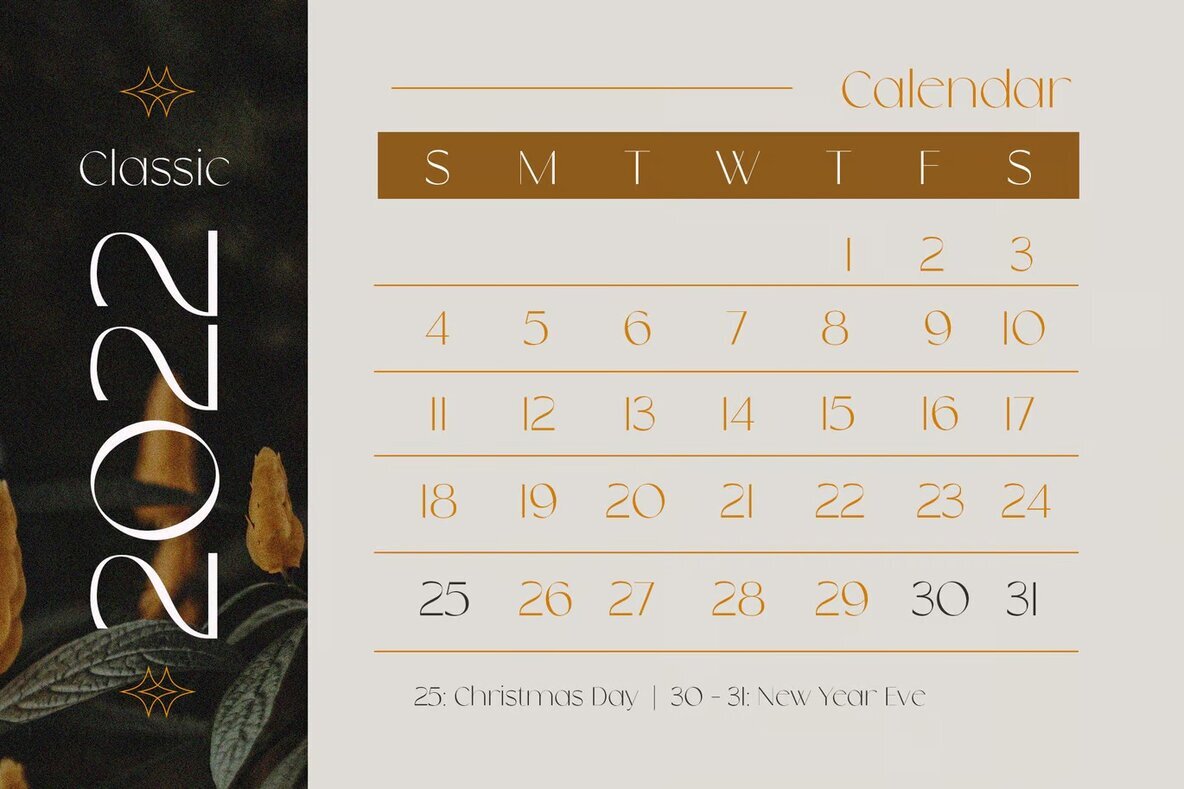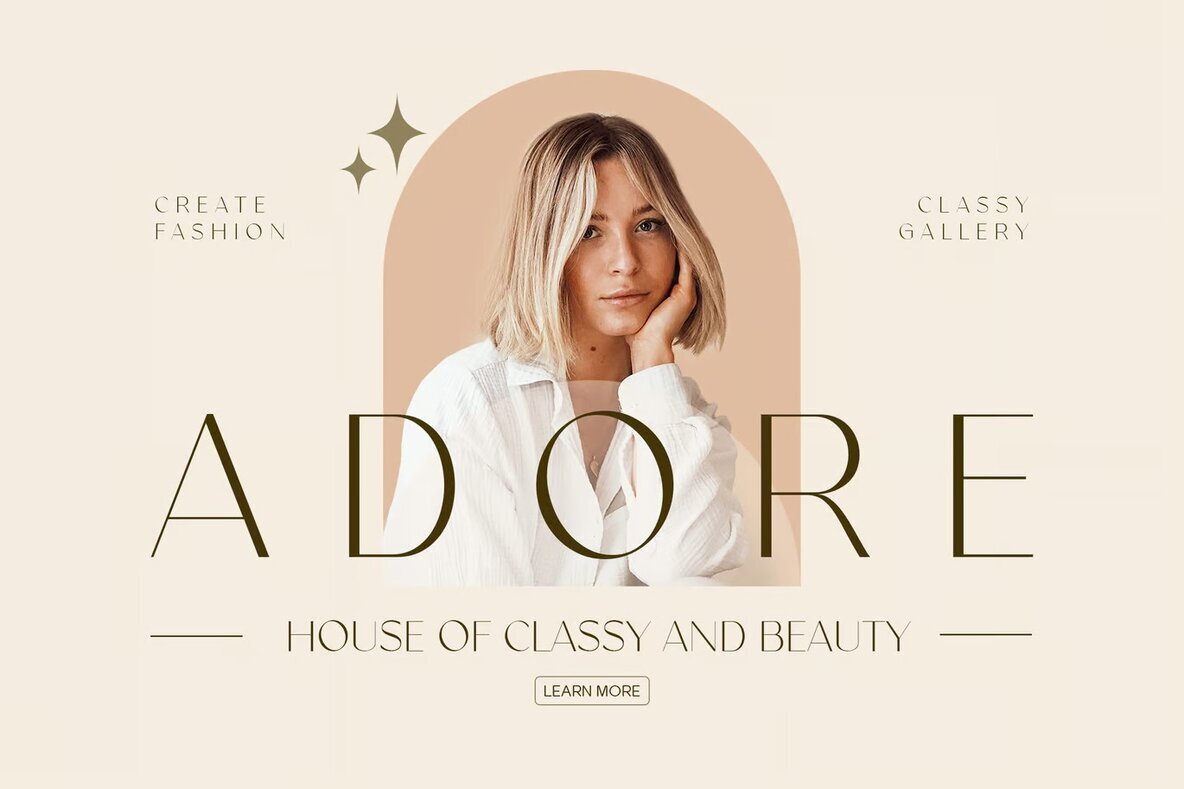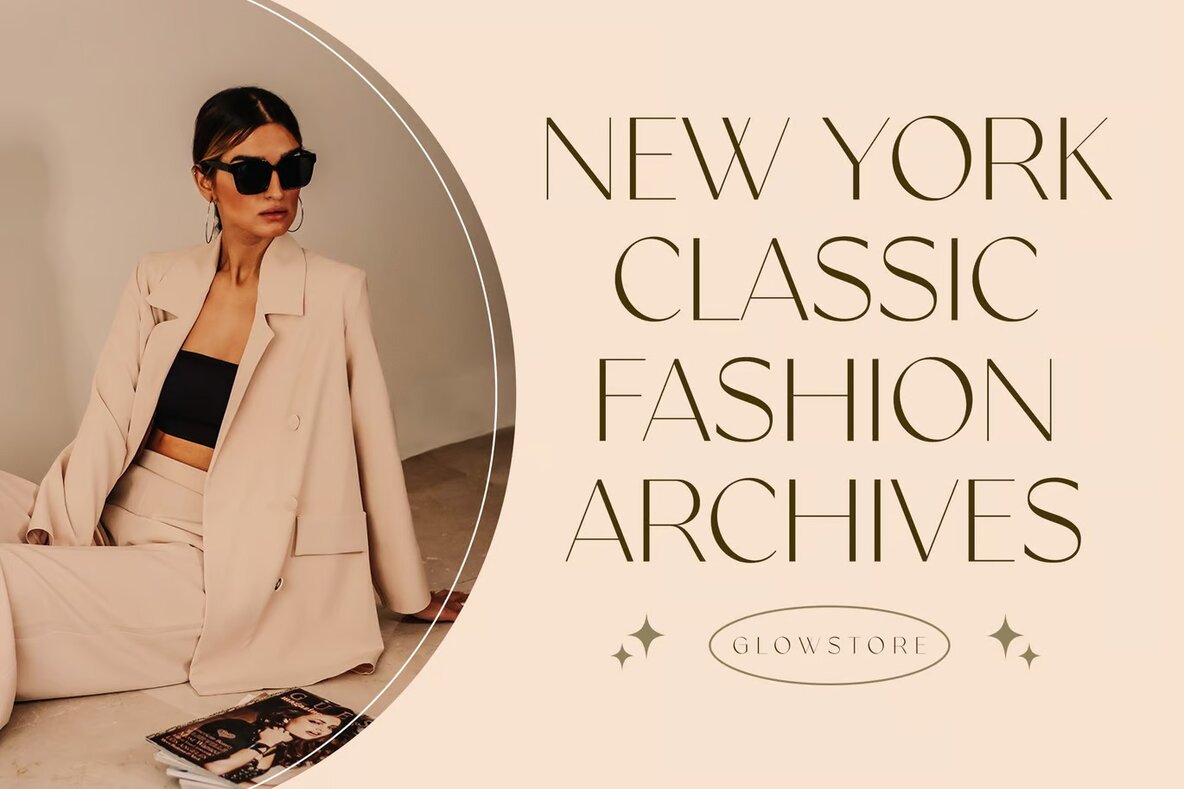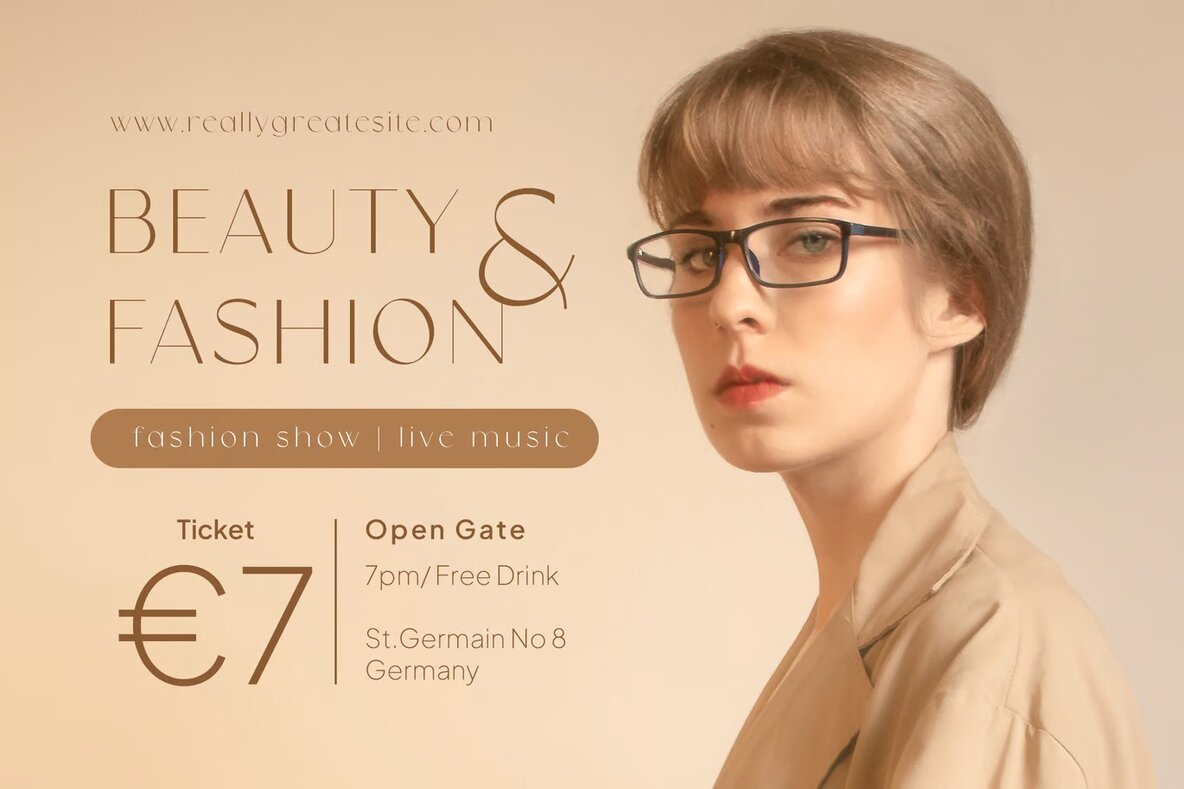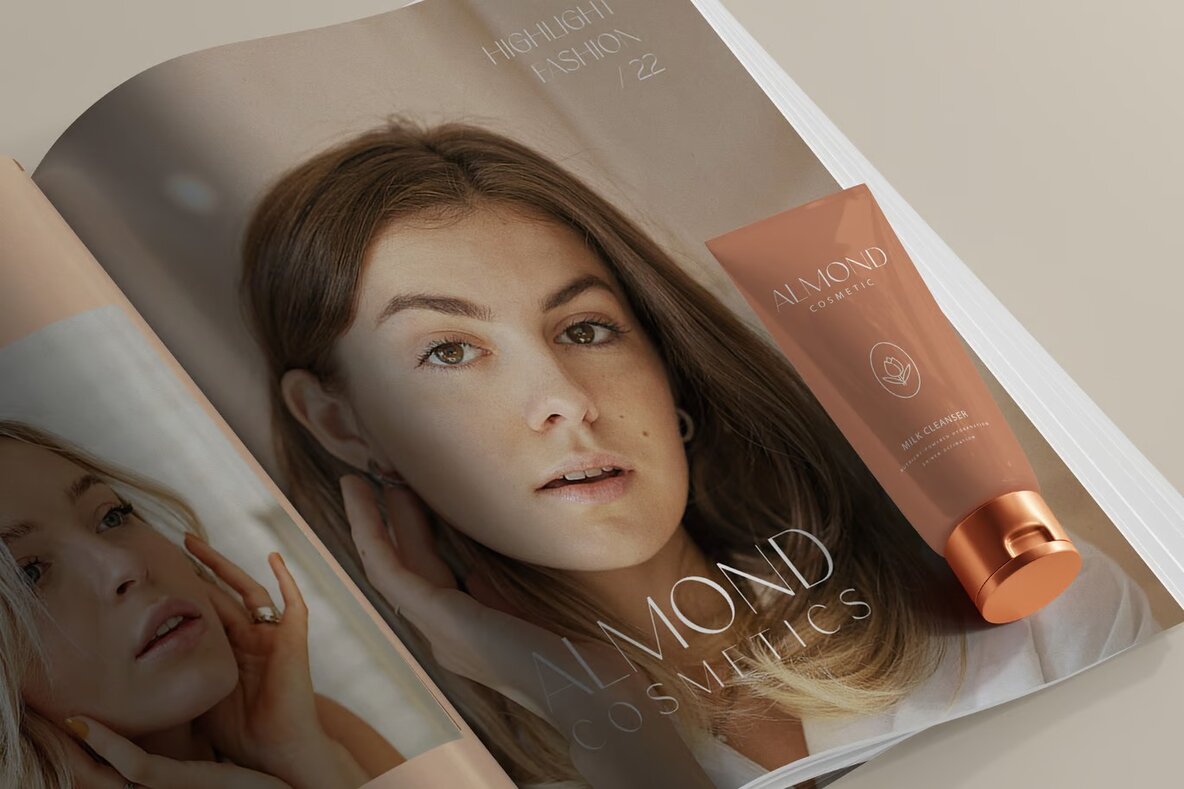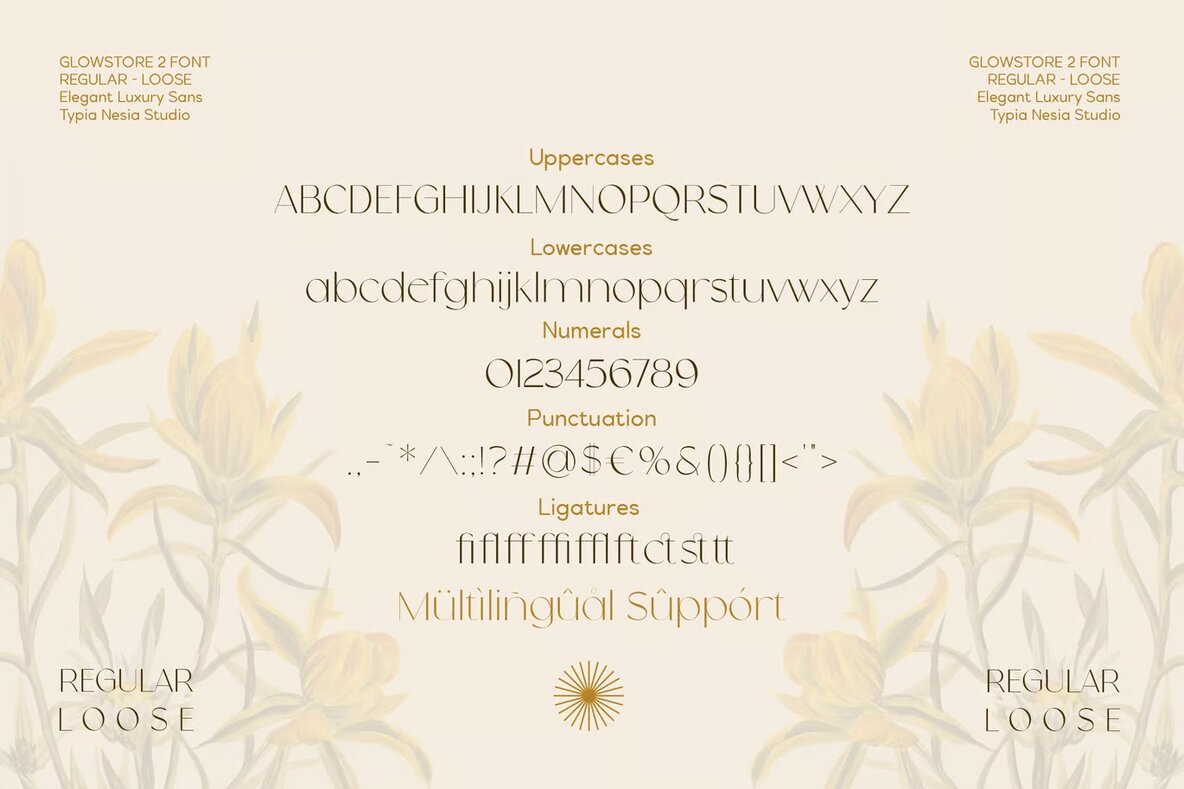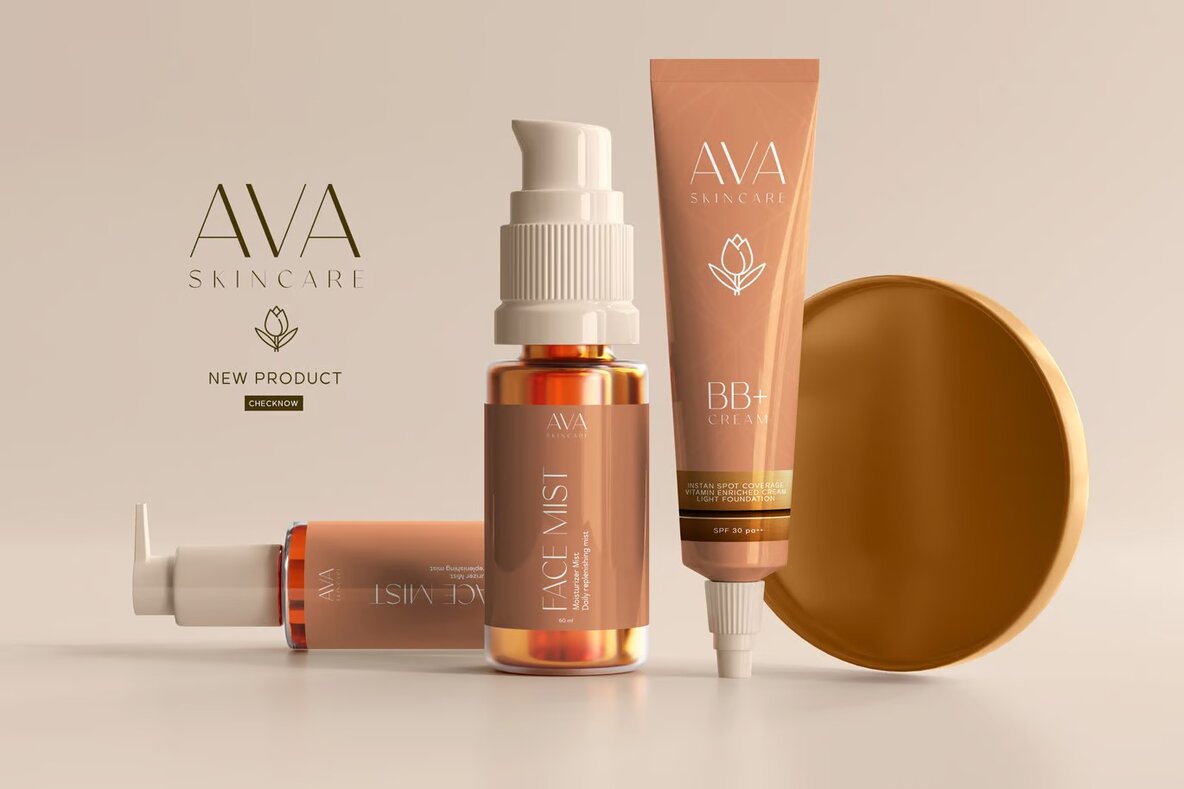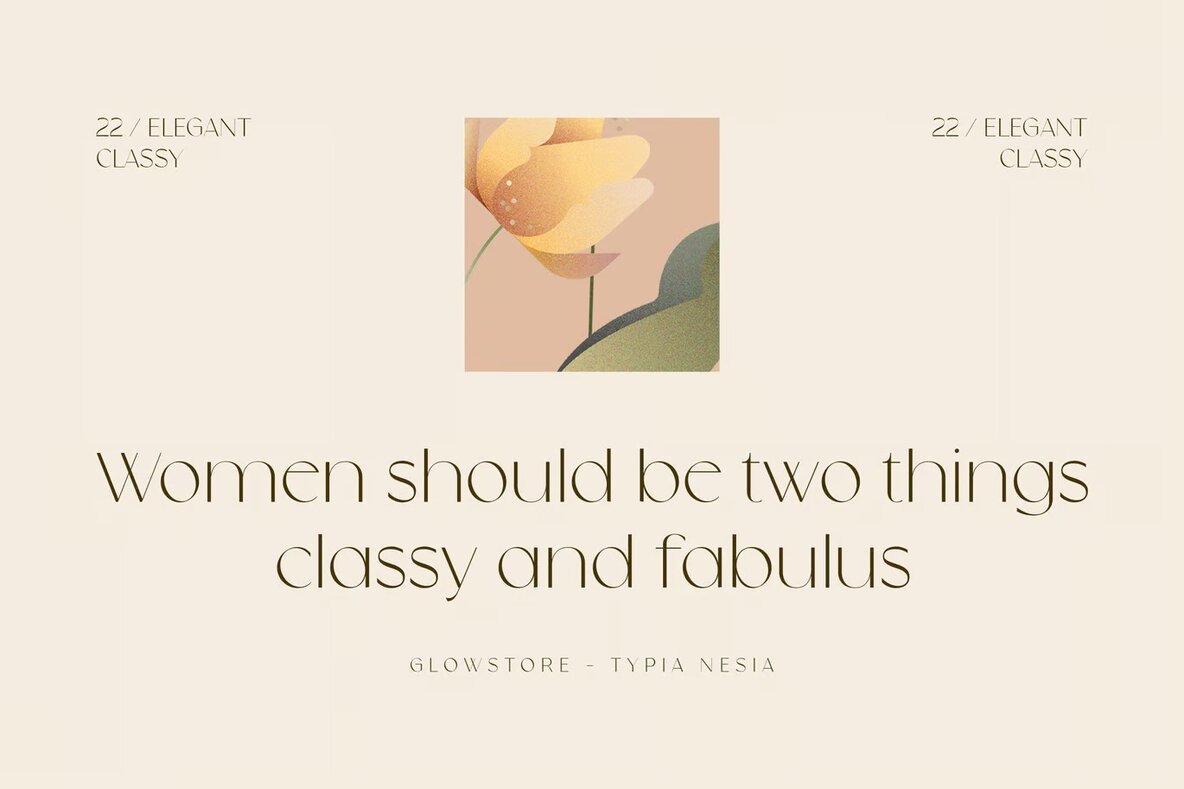
Glowstore Font
Glowstore Regular
Glowstore Sans is the ideal font for your upcoming projects, offering a modern, elegant, and luxurious aesthetic. This thin sans serif typeface is perfect for high-end branding, classy editorial designs, and chic fashion promotions. Whether you’re working on a luxury logo, cosmetic branding, or designing for a boutique, Glowstore Sans ensures a sophisticated and refined look.
Additionally, this font is suitable for a wide range of applications, including art gallery and museum branding, stationery design, and modern advertising. It’s also an excellent choice for book covers, home decor, special events, and artistic quotes. Enhance your designs with Glowstore Sans to achieve a stylish and polished finish that stands out.